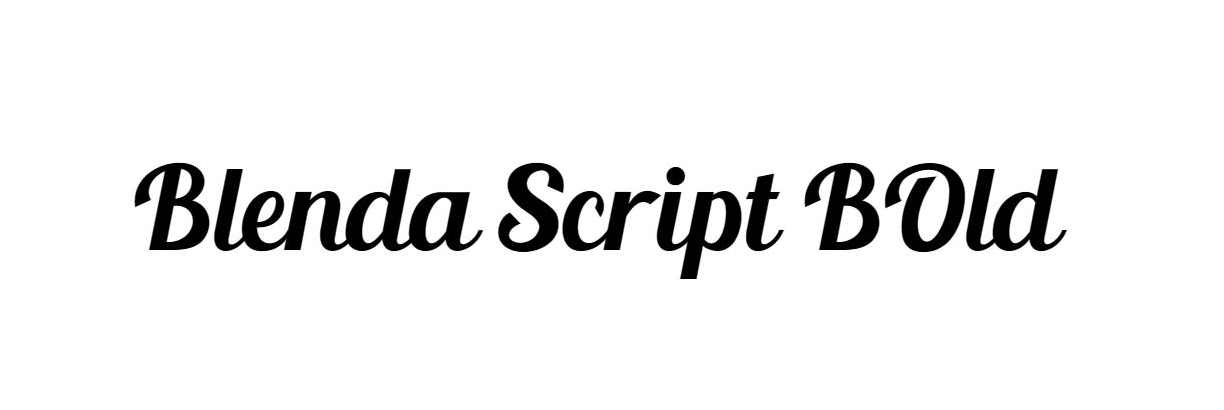
Blenda Script
Blenda Script is a script font made by Seniors Studio (2014). Its flowing, pen-made letters give names and short phrases a personal, polished look. It's a free download, and you can try it with your own text in the preview above first.
Blenda Script Font Details
- Languages: English and German
What You Can Type With Blenda Script
You get every letter from A to Z in both cases and all the numbers from 0 to 9, which means Blenda Script can handle full sentences, dates and prices. Everyday marks like &, !, ? and @ are there too. Thanks to its accented letters, it also works for German, not just English. Of its 285 glyphs, about 70 are not on your keyboard at all. That is where the alternates explained below live.
How to Use the Alternate Letters in Blenda Script
Where Blenda Script Works Best
Blenda Script is a natural fit for wedding invitations, logos and signature-style headings. Script fonts read best in short bursts, so keep it to names, titles and one-line quotes. Skip all caps: script capitals are drawn to start a word, not to fill one.
Does Blenda Script support accented letters?
Yes. Blenda Script includes the accented letters needed for German, so it works for more than just English.